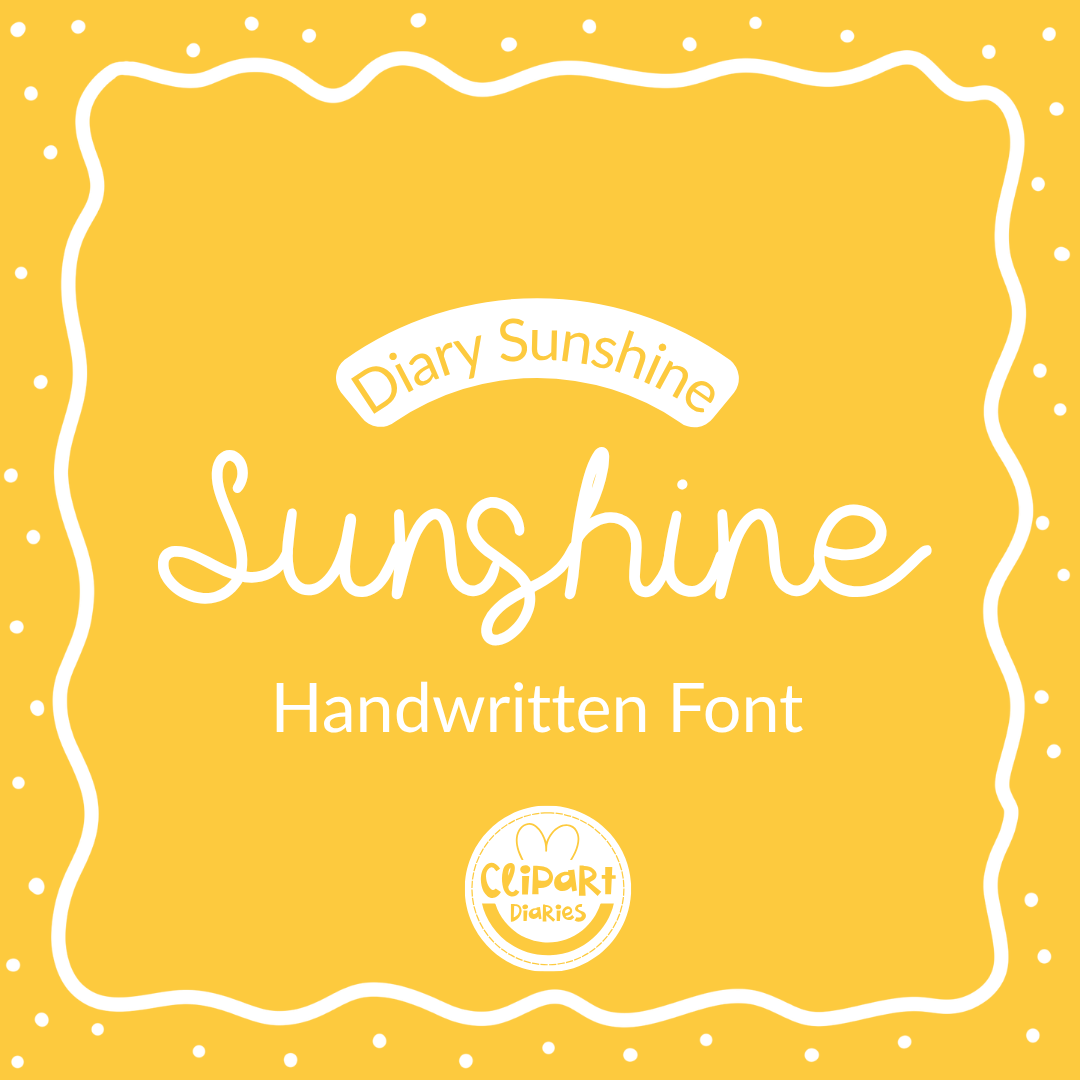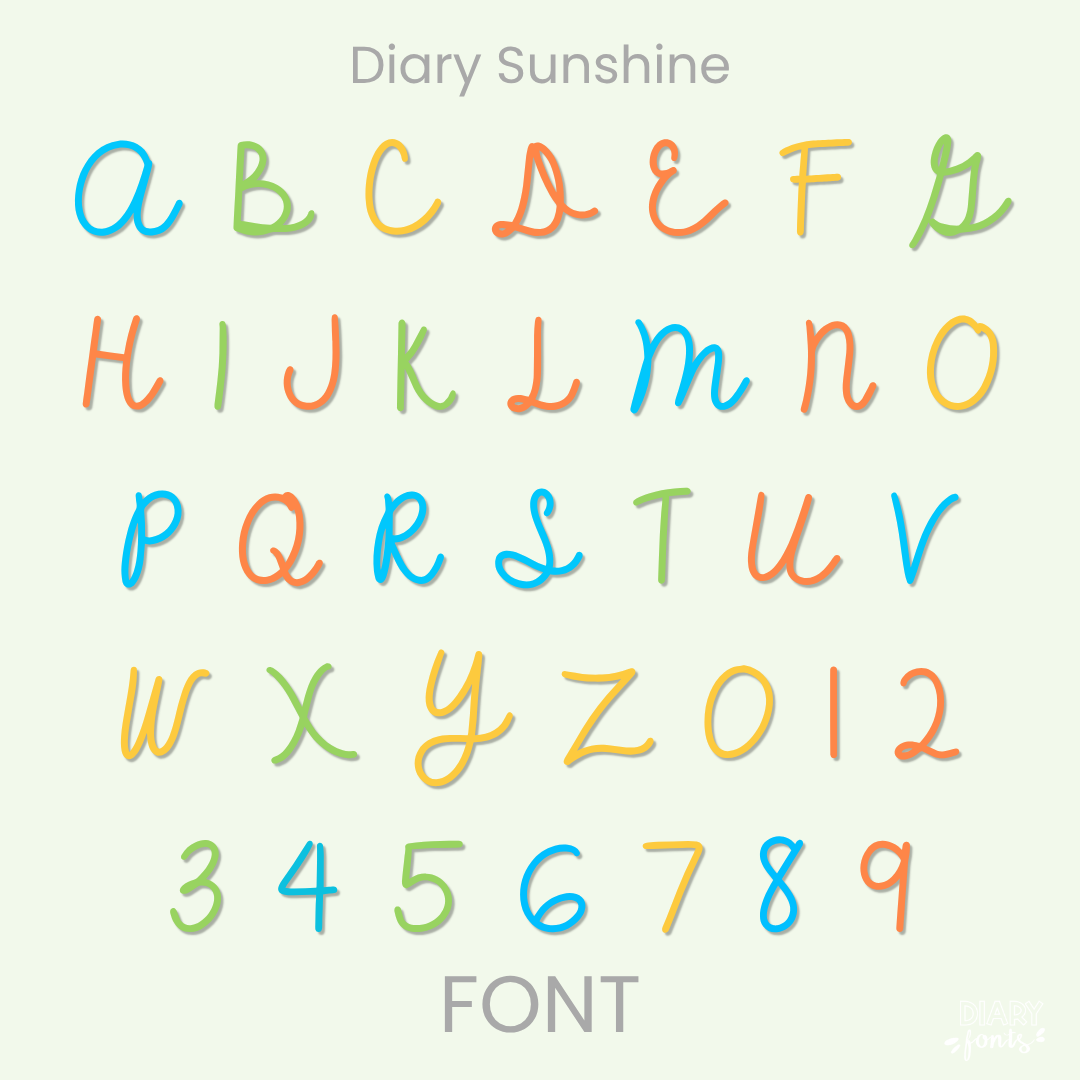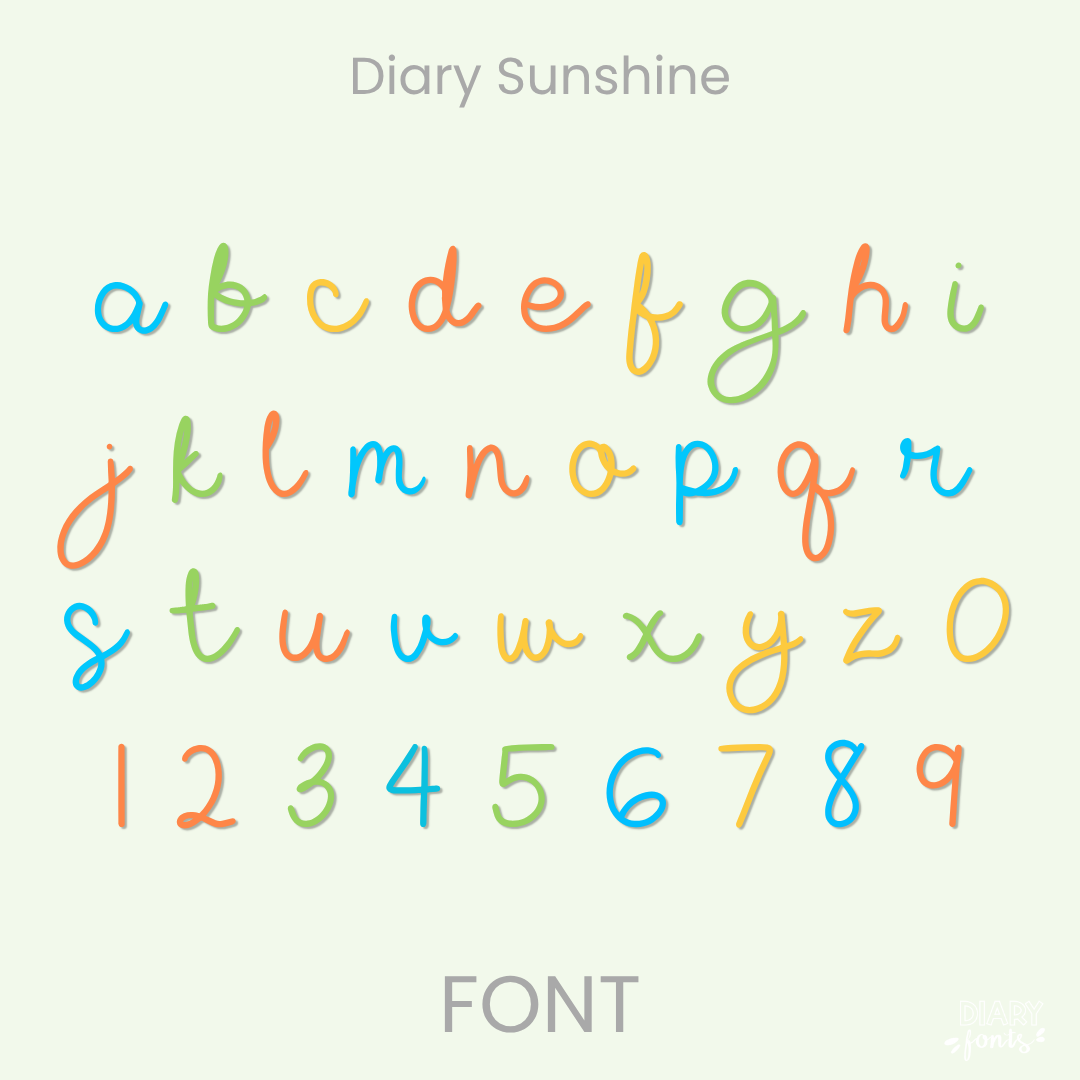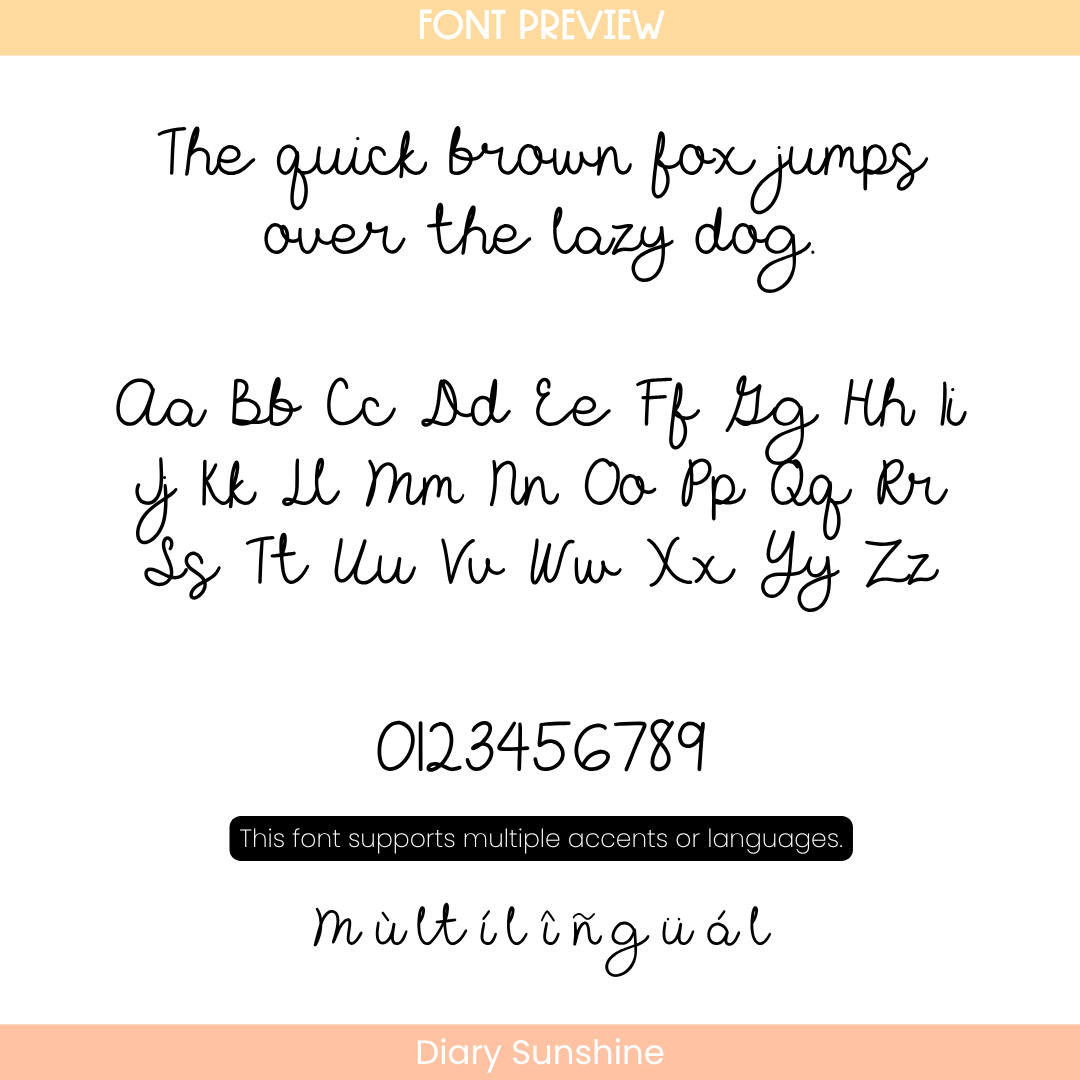
If you’ve been searching for a go-to playful script font that captures the warm, airy energy of a sunny morning layout while keeping your text looking incredibly neat, Diary Sunshine is about to become your new absolute favorite design tool. It features a beautifully consistent monoline structure with delicate, thin lines that glide effortlessly into gentle, loops and curves. Standing perfectly vertical and relaxed along the baseline, its airy character design cuts right through the visual noise—giving you an exceptionally clear, clean cursive script that your sweet students can read and follow with absolute ease.
It is the absolute perfect choice for typing up warm seasonal lessons, classroom cursive practice accent titles, daily morning meeting slides, and friendly educational resource headers where you want a styled vibe without sacrificing readability. Inside the download, you’ll get a full set of neat uppercase and lowercase script letters, clean matching numbers, and multi-accent markings for complete multilingual support. It drops right into Canva, MS Office, or Adobe on your desktop, and pairs beautifully with Procreate and GoodNotes on your iPad. Whether you’re prepping daily activities for your own sweet classroom or designing a beautiful new commercial-use product line for your online teacher shop, this decorative display font adds a touch of confident, warm style to your toolkit.